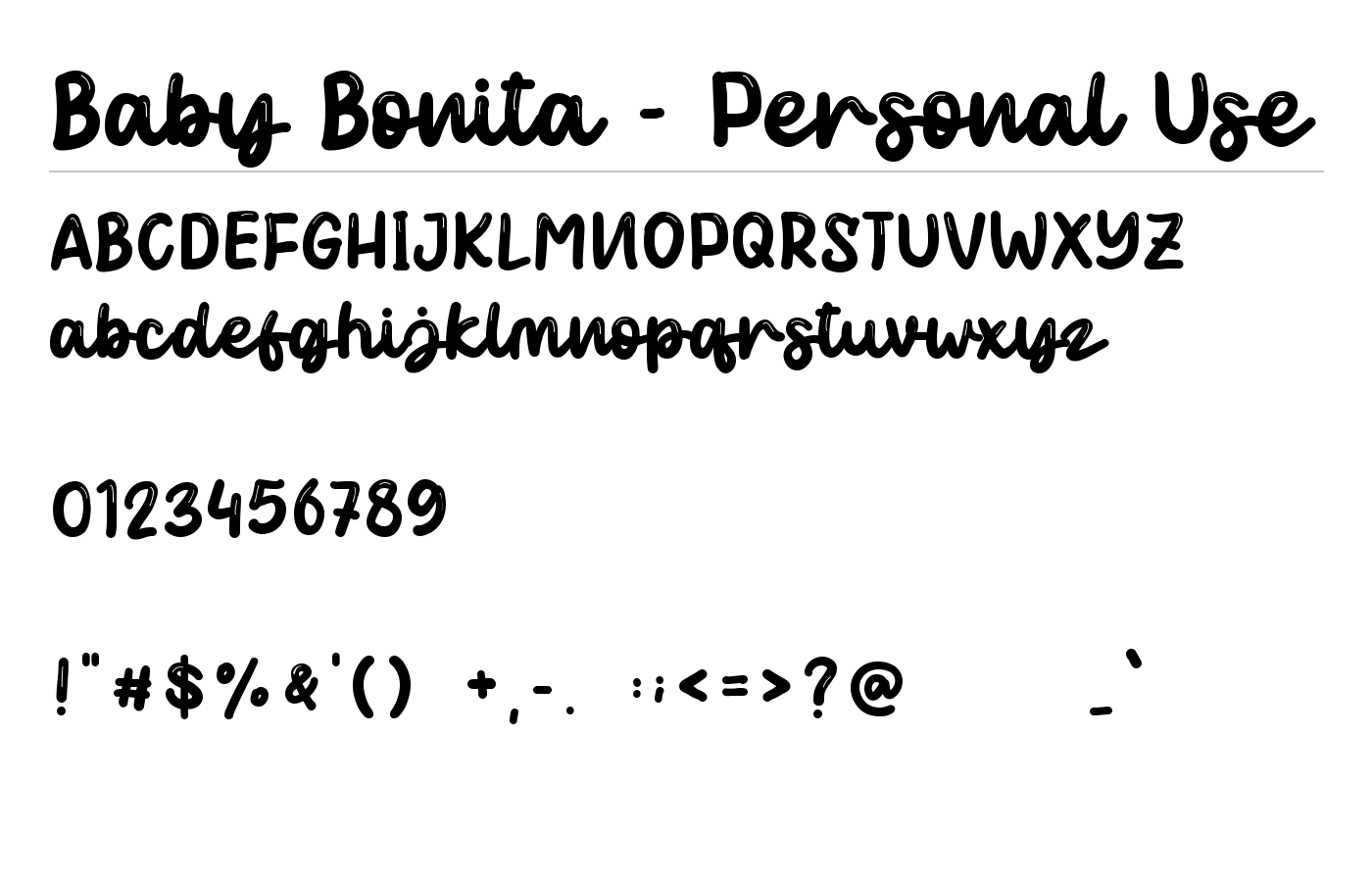
Baby Bonita is a playful and friendly handwritten sans serif font characterized by its smooth, rounded strokes and casual, lively letterforms. It has a medium weight and a slightly condensed width with a balanced x-height, making it both charming and legible for informal or youthful designs. This font is perfect for personal projects, children’s products, and creative branding where a warm, approachable personality is desired.
Baby Bonita - Personal Use Font
About Baby Bonita - Personal Use Font
| Font family | Baby Bonita - Personal Use Font |
| Designer | Ahmad Afandi |